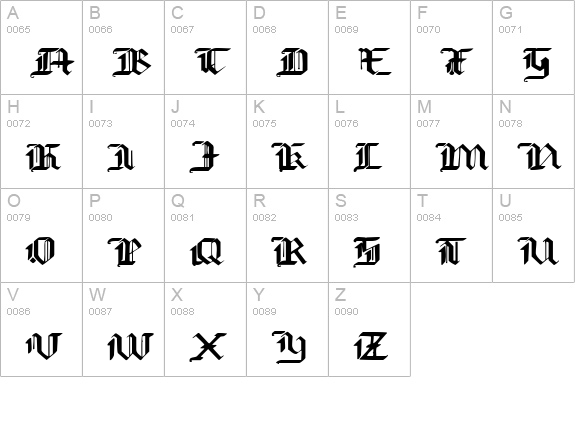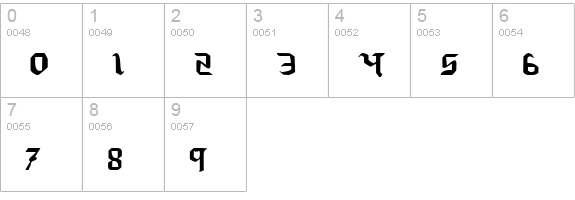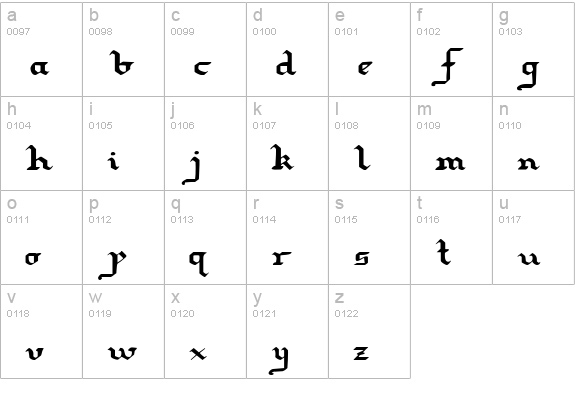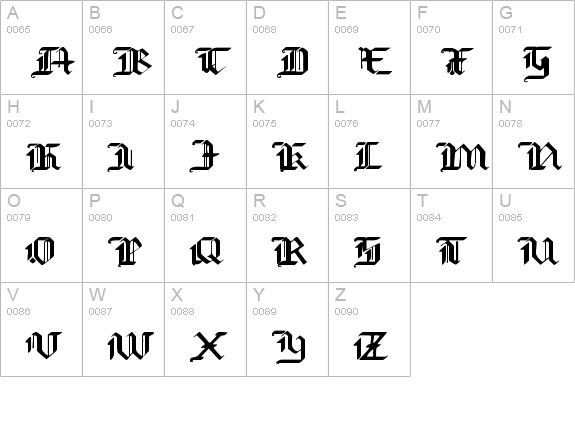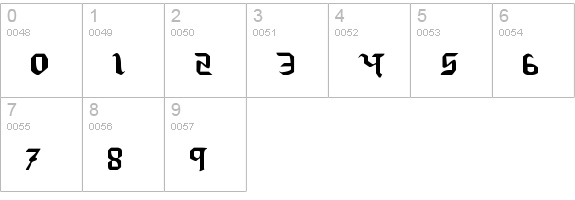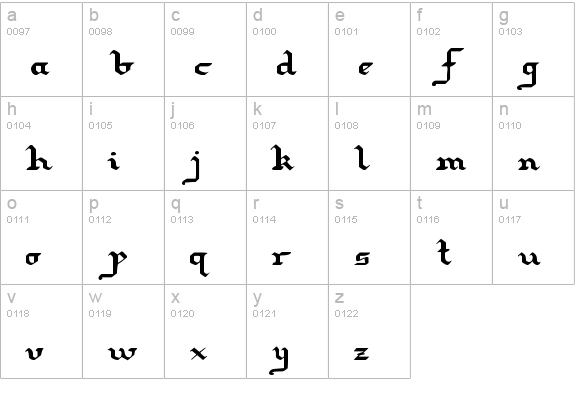
Redcoat Expanded is a distinctive, extended-width variant in the Redcoat typeface family \xE2\x80\x94 well suited to design and typography projects.
Redcoat Expanded font is a versatile and stylish typeface that exudes a classic and elegant aesthetic. With its elongated letterforms and sleek design, this font is perfect for creating eye-catching headlines, titles, and logos. The refined serif details add a touch of sophistication to any project, making it ideal for both print and digital designs. What sets Redcoat Expanded font apart is that it is available for free download at FontsMarket.com. This means that you can easily access this high-quality font without any cost, making it a valuable addition to your font collection. Whether you're working on a branding project, editorial design, or website layout, Redcoat Expanded font offers a timeless appeal that will elevate your design work. Download it today and add a touch of elegance to your projects.